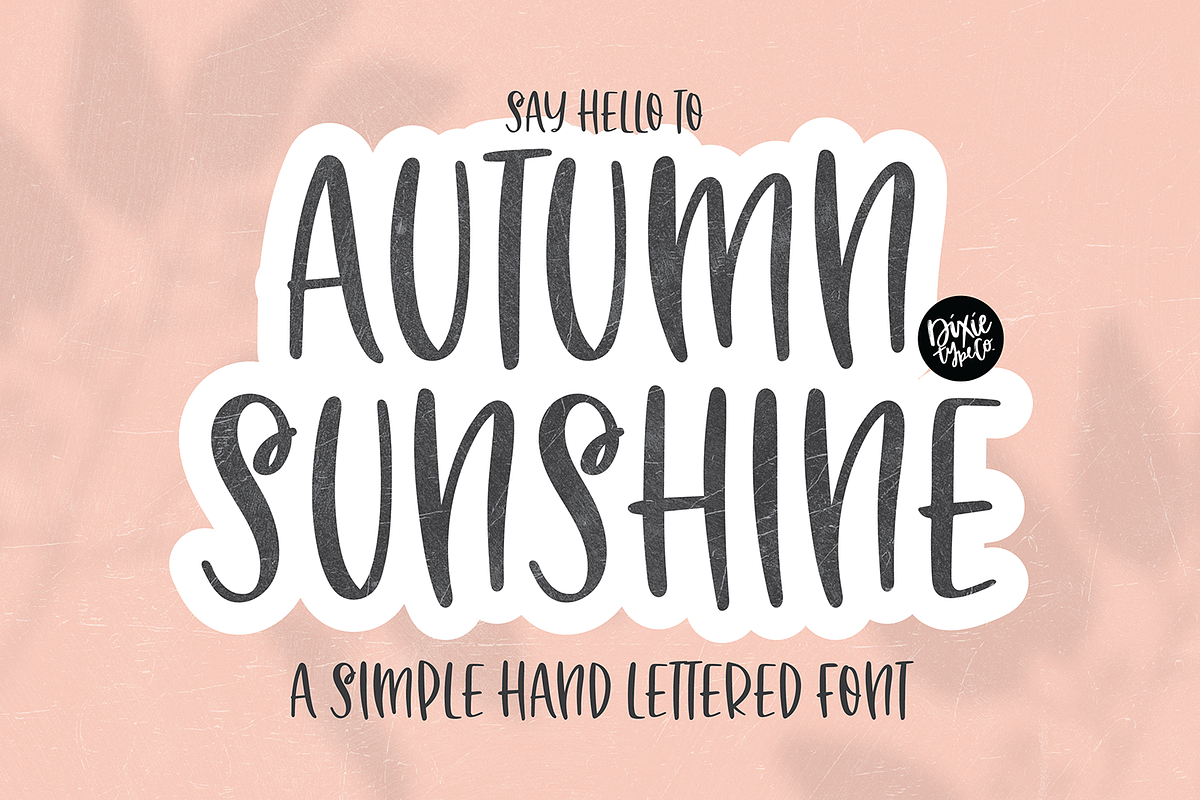
Bring warmth and personality to your designs with AUTUMN SUNSHINE Brush Font Free Download. This hand-drawn brush font captures the cozy and artistic feel of a crisp fall day, making it perfect for greeting cards, social media posts, product packaging, logos, and creative branding projects.
Its organic strokes and natural texture give a handcrafted vibe that adds charm and authenticity to any design. Whether you’re crafting an autumn-themed promotion or just love the free-flowing brush style, AUTUMN SUNSHINE is your new go-to font.